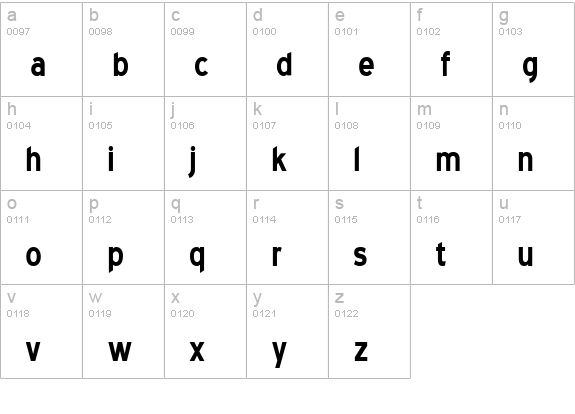
TR Blue Highway Bold Font Details
TR Blue Highway Bold is a strong, high-contrast variant in the TR typeface family \xE2\x80\x94 well suited to headlines, attention-grabbing titles, and strong calls-to-action.
TR Blue Highway Bold is a modern and sleek font that exudes confidence and professionalism. Its bold and clean lines make it perfect for a variety of design projects, from logos to headlines. The font is easy to read and adds a touch of sophistication to any text it is applied to. What sets TR Blue Highway Bold apart is that it is available for free download at FontsMarket.com. This means that you can access this high-quality font without any cost, making it a valuable addition to your font library. With its timeless design and versatile usage, TR Blue Highway Bold is sure to become a go-to choice for your design needs.